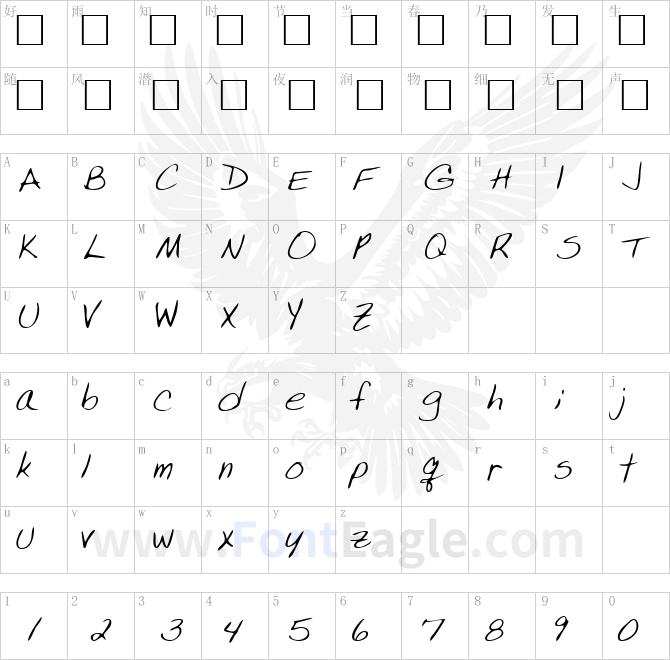
- Font name:PatriciasHand
- Font Subfamily ID:Weatherly Systems, Inc. PatriciasHand Regular
- Font Full Name:PatriciasHand Regular
- Postscript:PatriciasHand-Plain